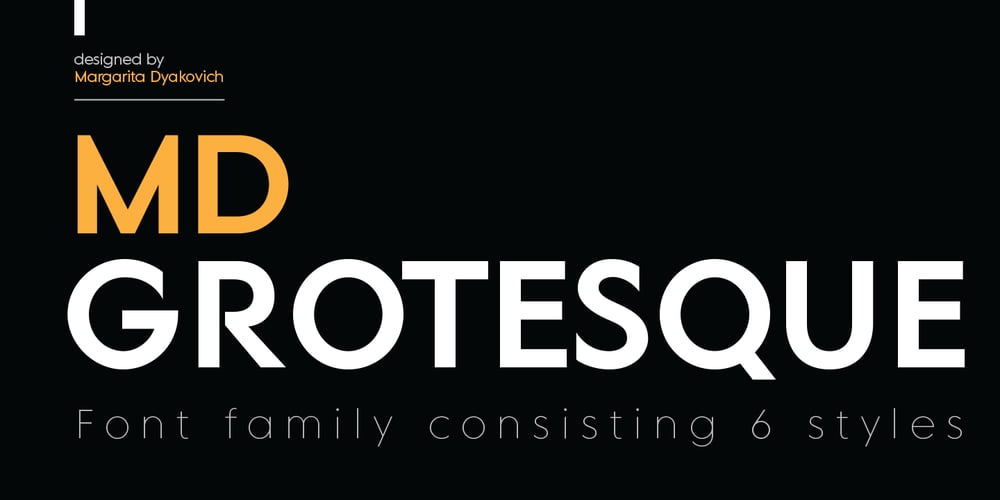
MD Grotesque Font Family was designed by Margarita Dyakovich and published by Margarita Dyakovich. MD Grotesque contains 6 styles and family package options. MD Grotesque is sans serif font family with a modern and minimalist feel with high readability. It’s extremely versatile and can be used for a big variety of design projects. Perfect for any simple text. It comes in 3 weights and its matching italics. Each style includes Latin and Cyrillic character set.